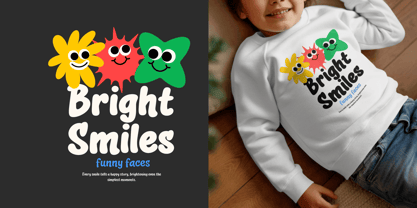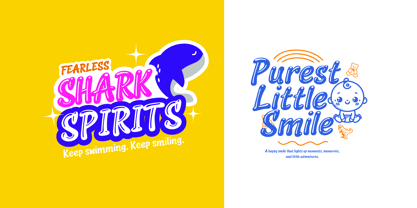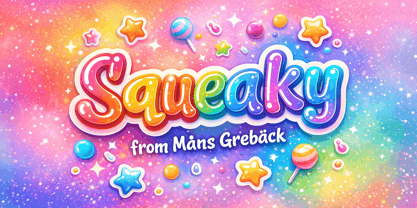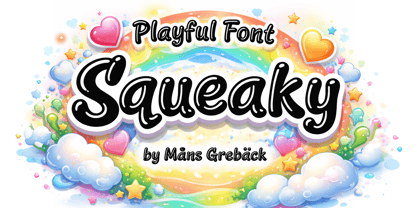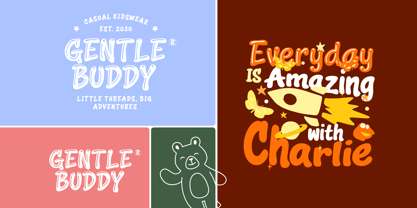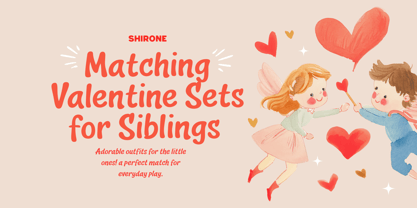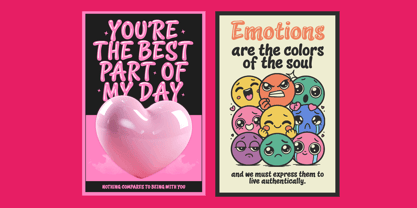
Squeaky
by Mans Greback
The Squeaky Font Family was designed by Måns Grebäck and published by Mans Greback. Squeaky contains 12 styles and family package options.
Squeaky is a playful display font with a soft, bouncy rhythm and a friendly tone. Its rounded shapes and slightly uneven flow give the lettering a lively personality, as if each character was gently squeezed into place. The strokes are thick and confident, but never stiff, keeping the overall feeling lighthearted and expressive. With multiple weights, styles, and decorative variants, the font can shift from simple and charming to bold and energetic without losing its character. Squeaky feels at home in joyful, imaginative settings. It brings warmth to words and a sense of fun to messages, making text feel approachable and full of movement rather than static. The font is built with advanced functionality and guaranteed top-notch quality, containing stylistic and contextual alternates, ligatures and more automatic and manual features; all to give you full control and customizability. It has extensive lingual support, covering all Latin-based languages, from North Europa to South Africa, from America to South-East Asia. It contains all characters and symbols you'll ever need, including all punctuation and numbers. Designed by Måns Grebäck, Squeaky is drawn with care for both detail and spontaneity, balancing clean construction with a hand-made feel that keeps the font playful and human.
Måns Grebäck is a type designer and font creator specializing in script typography, but with a portfolio containing a vast selection of styles. Typefaces from Måns Grebäck are used as company and product logotypes, as well as headlines and in advertisement by a wide range of industries world-wide. Founded by Måns Grebäck in 2010, Mans Greback AB originally went under the name of Mawns Fonts and later Aring Typeface AB. While the foundry has its seat Örebro, Sweden, Måns also lives in Portugal. The Premium Foundry page can be viewed Here.